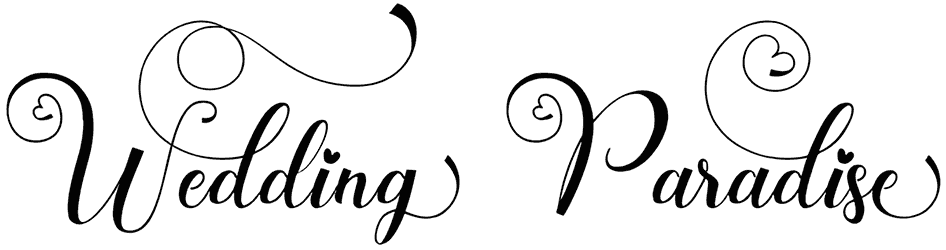
Wedding Paradise Font
Introducing Wedding Paradise, a beautiful calligraphy font that looks delicate, flowing, and well-balanced. It shows a touch of modernity in every single letter, and the characters come with lovely swashes decorated with hearts.
Add this adorable wedding font to your work and make a memorable masterpiece. It is perfectly qualified for wedding invitations, branding, greeting cards, Valentine’s Day projects, and other romantic purposes.
Introducing Wedding Paradise – Calligraphy Script Font
Wedding Paradise is a smooth, elegant and stylish handwritten font. It has a beautiful and balanced character and as a result, fits perfectly into any card, invitation or wedding decoration design. as well as various other designs such as company logos, business cards, book titles, brand names, and others.
FEATURE :
– Ligature
– Uppercase and lowercase
– Numbering and Punctuation